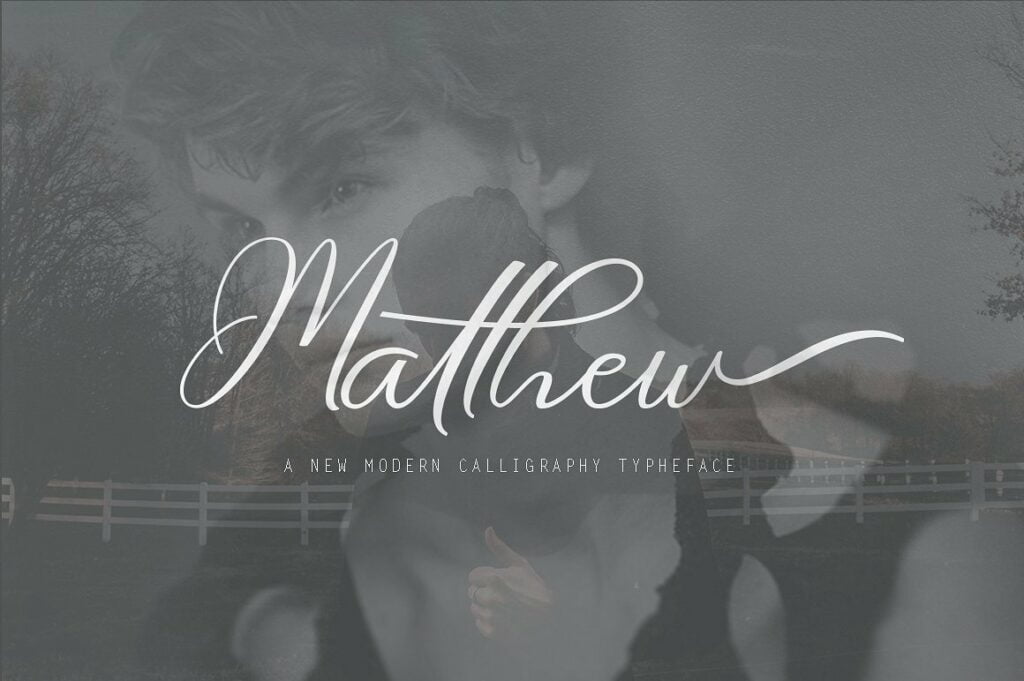
Matthew Script Font
Matthew a lovely modern calligraphy typeface, combining the of classic and modern calligraphy style from copperplate to contemporary typeface with a dancing baseline, modern and elegant touch.
It includes initial and terminal letters, alternates, ligatures and multiple language support.